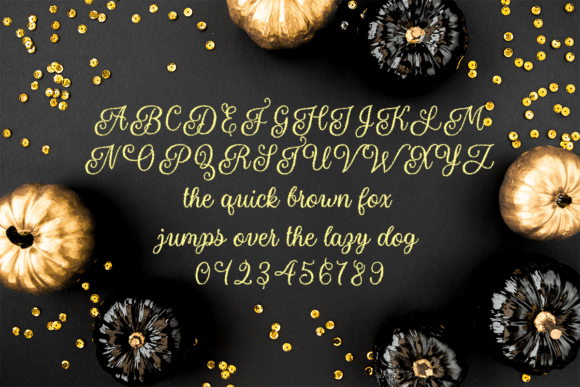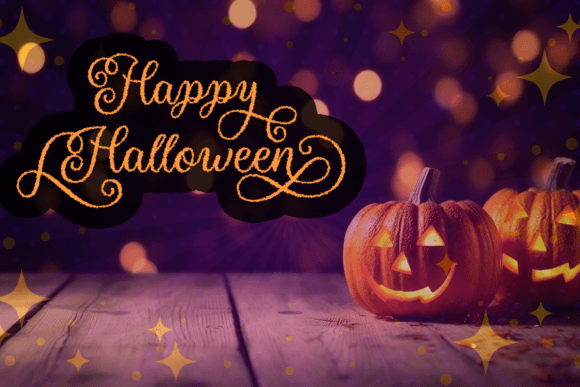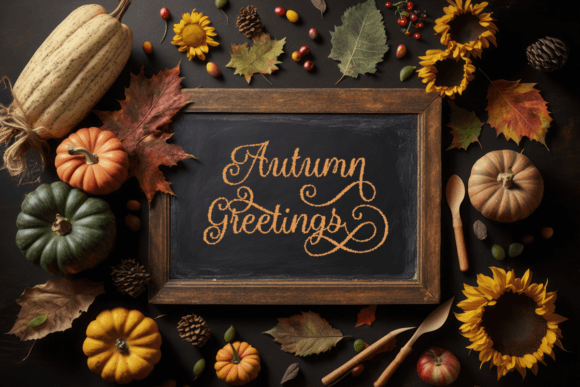
Introducing Halloween Sparkle: The Ultimate Font for Spooky Elegance
Are you looking for a font that will add a touch of spooky elegance to your Halloween-themed projects? Look no further than Halloween Sparkle, an elegant calligraphy typeface with a spooky twist. This font is perfect for designers and crafters who want to create eye-catching and memorable designs that will leave a lasting impression on their audience.
The Unique Design of Halloween Sparkle
Halloween Sparkle features rough edges that add to its eerie charm, making it a standout from other fonts. The unique design of this font is sure to catch the eye and add a personal touch to your designs. Whether you’re creating invitations, posters, social media graphics, or any other type of project, Halloween Sparkle is the perfect choice.
Extensive Set of Glyphs
One of the best features of Halloween Sparkle is its extensive set of glyphs. The font comes with a PDF guide that outlines all the extra glyphs available, making it easy to access and utilize all the special characters. With this extensive set of glyphs, you can add a personal touch to your designs and make them stand out from the rest.
Versatility of Halloween Sparkle
Halloween Sparkle is a versatile font that can be used for a wide range of projects. Its spooky elegance makes it perfect for Halloween-themed projects, but it’s also suitable for other projects that require a touch of elegance and sophistication. Use Halloween Sparkle for:
- Invitations: Create spooky and elegant invitations for Halloween parties, weddings, and other events.
- Posters: Design eye-catching posters for Halloween events, haunted houses, and other spooky attractions.
- Social Media Graphics: Add a touch of spooky elegance to your social media graphics, including Facebook posts, Instagram stories, and Twitter headers.
- And more: Halloween Sparkle can be used for any project that requires a touch of spooky elegance, from business cards to brochures.
Why Choose Halloween Sparkle?
There are many fonts available that claim to be perfect for Halloween-themed projects, but Halloween Sparkle stands out from the rest. Here are just a few reasons why:
- Unique design: Halloween Sparkle features a unique design that is sure to catch the eye and leave a lasting impression on your audience.
- Extensive set of glyphs: The font comes with an extensive set of glyphs, making it easy to add a personal touch to your designs.
- Versatility: Halloween Sparkle can be used for a wide range of projects, from invitations to posters and social media graphics.
Halloween Sparkle is a must-have font for designers and crafters who want to create spooky and elegant designs for the Halloween season. Its unique design, extensive set of glyphs, and versatility make it the perfect choice for any project that requires a touch of spooky elegance. Don’t miss out on this amazing font – get Halloween Sparkle today and start creating unforgettable designs!
Key Features of Halloween Sparkle
- Elegant calligraphy typeface with a spooky twist
- Rough edges that add to its eerie charm
- Extensive set of glyphs
- Perfect for invitations, posters, social media graphics, and more